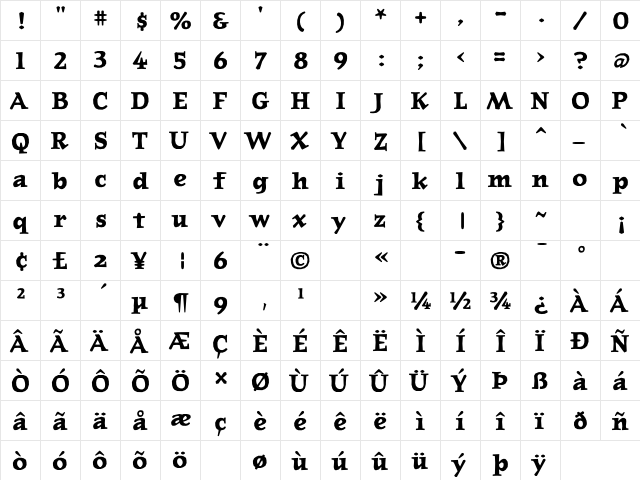
JournalLining Bold Font Preview
JournalLining Bold
JournalLining Bold Font Details
Design Context for JournalLining Typeface
JournalLining takes a measured approach to typography — its balanced proportions and neutral character make it a reliable workhorse for both digital and print work. The heavy weight commands attention and anchors typographic hierarchies.